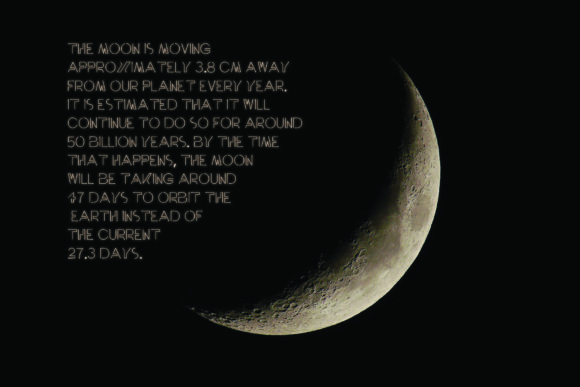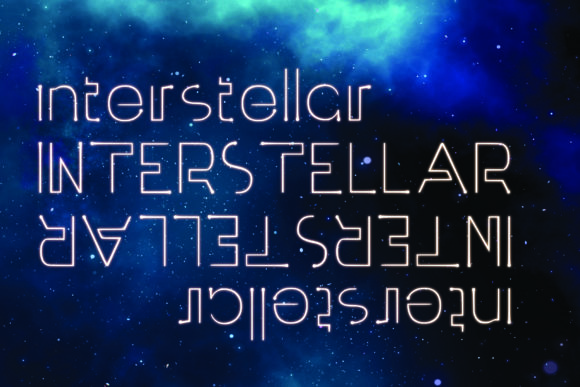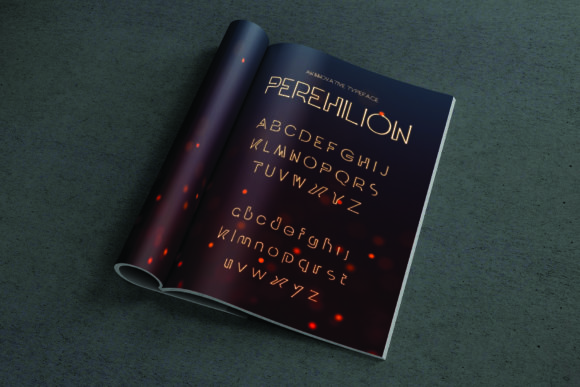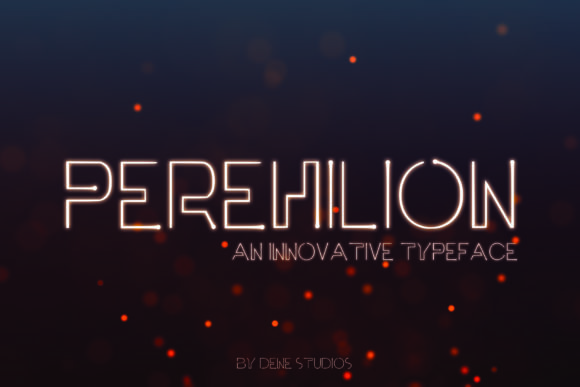
Introduction to Perehilion Font
Perehilion is a unique and modern display font crafted with care.
Get inspired by its futuristic feel .
Key Features of Perehilion Font
Why Choose Perehilion Font?